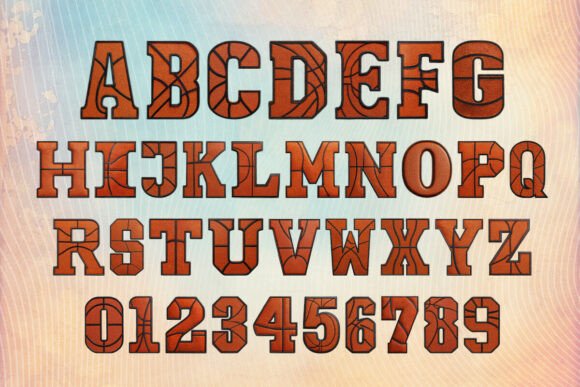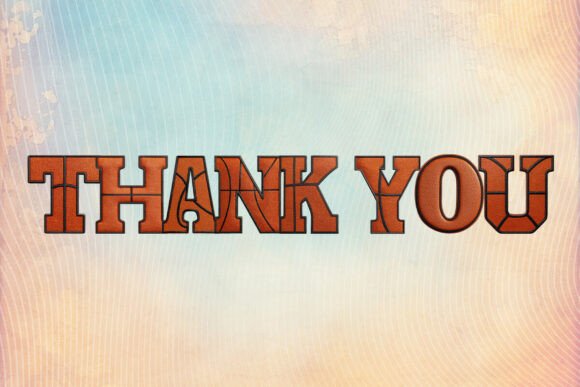
The Perfect Dribble: Introducing the Basketball Font
Imagine you’re in the midst of a heated basketball game, the crowd cheering, the ball flying through the air, and the sound of sneakers squeaking on the court. That rush of adrenaline is exactly what inspired the creation of the Basketball NBA NCAA Alphabet Font – a dynamic, eye-catching typeface designed to capture the essence of the game.
This bold, athletic font is more than just a pretty face; it’s a powerful tool for designers looking to elevate their basketball-themed projects. Whether you’re creating jerseys for a school team or designing marketing materials for an NBA franchise, the Basketball Font is sure to bring a winning spirit to your work. With its unique blend of style and functionality, this font is a slam dunk for designers who want to make a lasting impact.
- Unique Characteristics: The font features a bold, modern design with clean lines and a sporty feel, making it perfect for basketball-themed projects and events.
Basketball Font Review
I’ve been experimenting with the Basketball Font, and here’s my honest take on it.
- The font’s unique design elements, such as the swooshes and rounded edges, effectively evoke a sense of movement and energy, perfect for sports-related projects.
- The font is highly customizable, with various styles and sizes available, making it versatile for use in different contexts.
- The font’s bold and playful feel makes it an excellent choice for headlines and titles, adding a touch of excitement to any design.
- The font may not be suitable for body text due to its playful and attention-grabbing nature, which can be overwhelming for large blocks of text.
- The font’s complexity may lead to legibility issues in smaller sizes or at low resolutions.
- The font’s unique design may not appeal to everyone’s taste, potentially limiting its use in certain design projects.
The Basketball Font is a unique and eye-catching choice for sports-related projects or designs where a playful and energetic feel is desired. While it has some limitations, its customization options and bold design make it a valuable addition to any designer’s toolkit.
The Basketball Font is ideal for:
- Sports-themed designs and graphics.
- Sports-related presentations and reports.
- Custom graphics and illustrations for sports equipment and apparel.